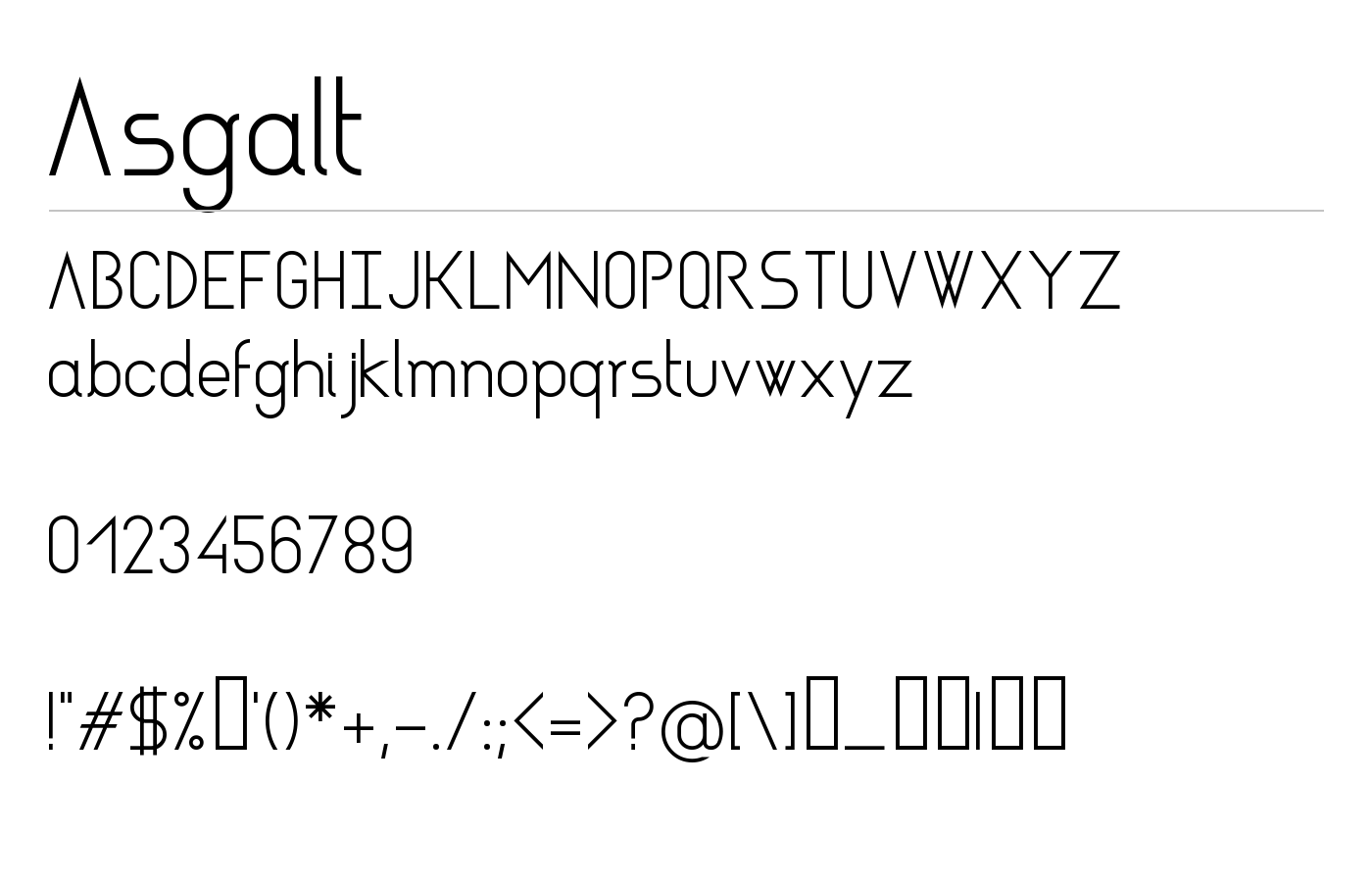
Asgalt is a sleek, modern sans serif font characterized by its narrow, condensed letterforms and clean, geometric strokes. With a light weight and a high x-height, it offers excellent readability while maintaining a minimal and elegant aesthetic, ideal for contemporary branding and editorial design. Its unique, slightly futuristic shapes make it perfect for fashion, technology, and creative industries looking to convey sophistication and forward-thinking style.
Asgalt Font